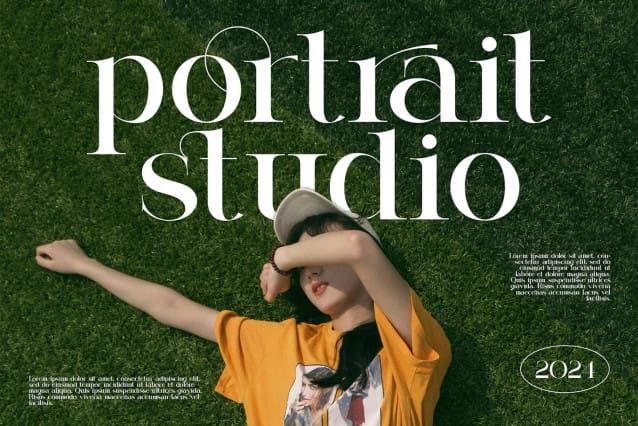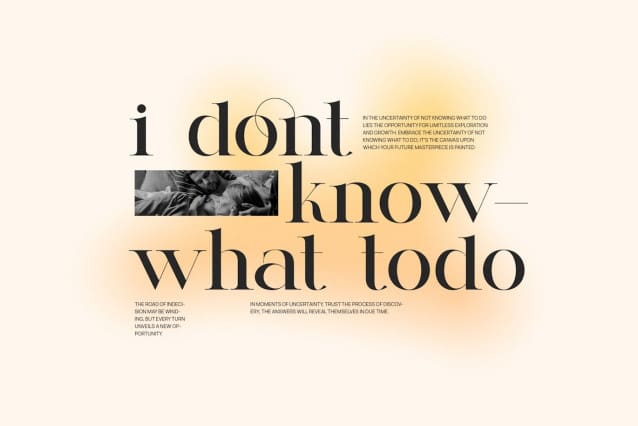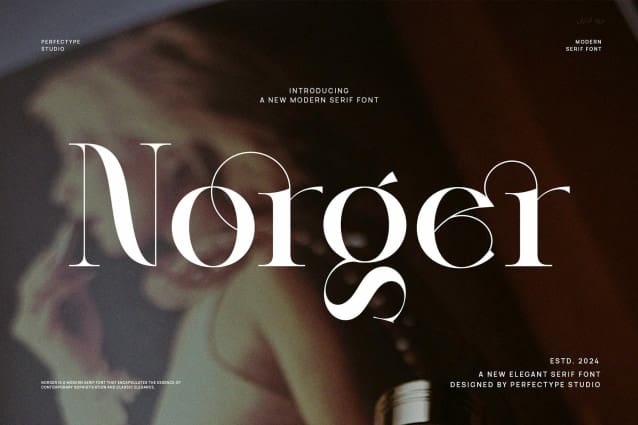
Norger Font
Norger Font is a very elegant and classy font for all branding and logo designs. This type of Serif font is made with elegance and luxury, so it is perfect for all your design uses. This font type is perfect for your various needs like branding projects, logos, social media posts, advertisements, labels, product packaging, photography, wedding designs, watermarks, invitation product designs, stationery and any project created with a high standard